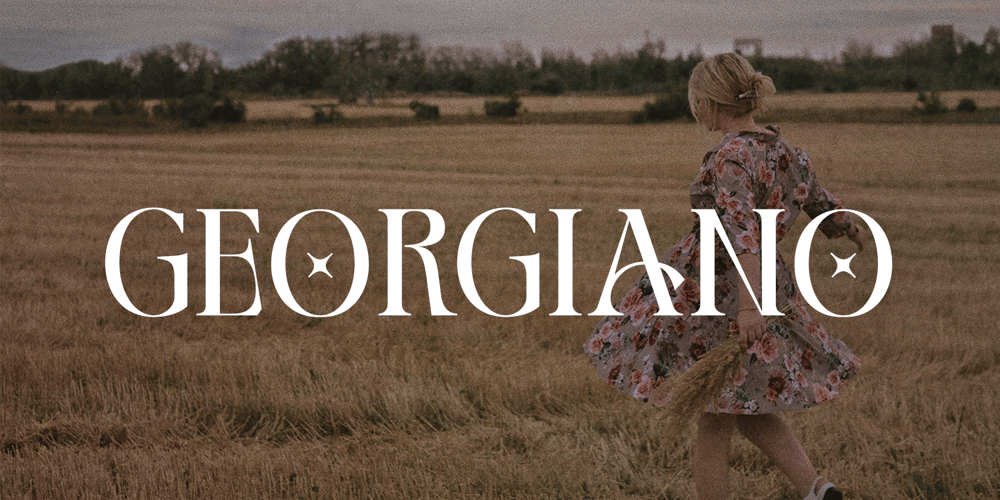
Georgiano Typeface
Georgiano Typeface font
Georgiano Typeface Font Family was designed by Evin Tony and published by FoxType. Georgiano Typeface contains 1 styles and family package options. Introducing Georgia Typeface, a meticulously crafted decorative font designed to elevate fashion and jewelry brands. With its modern aesthetic and precise details, Georgia seamlessly blends elegance and functionality, making it perfect for Logos, Titles, Headlines, Posters, and Digital displays. This versatile font enhances brand identity across various mediums, including print and screen, ensuring your message is delivered with sophistication and style.